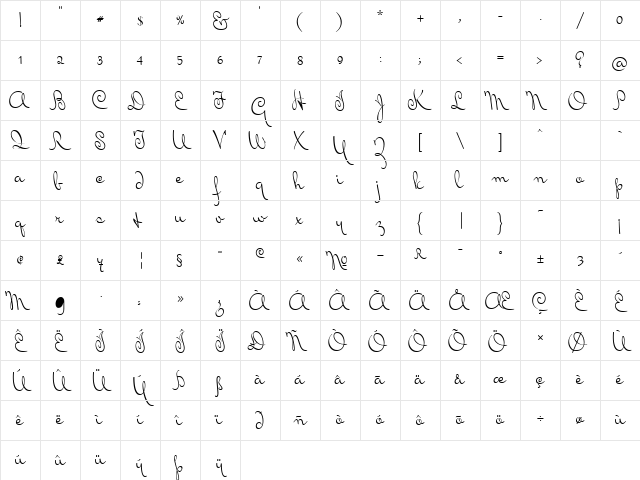
Mrs Von Eckley Regular Free Font
Mrs Von Eckley Regular
Design Context for Mrs Von Eckley
Mrs Von Eckley is a composed and adaptable typeface that performs quietly and consistently across a wide range of design contexts.